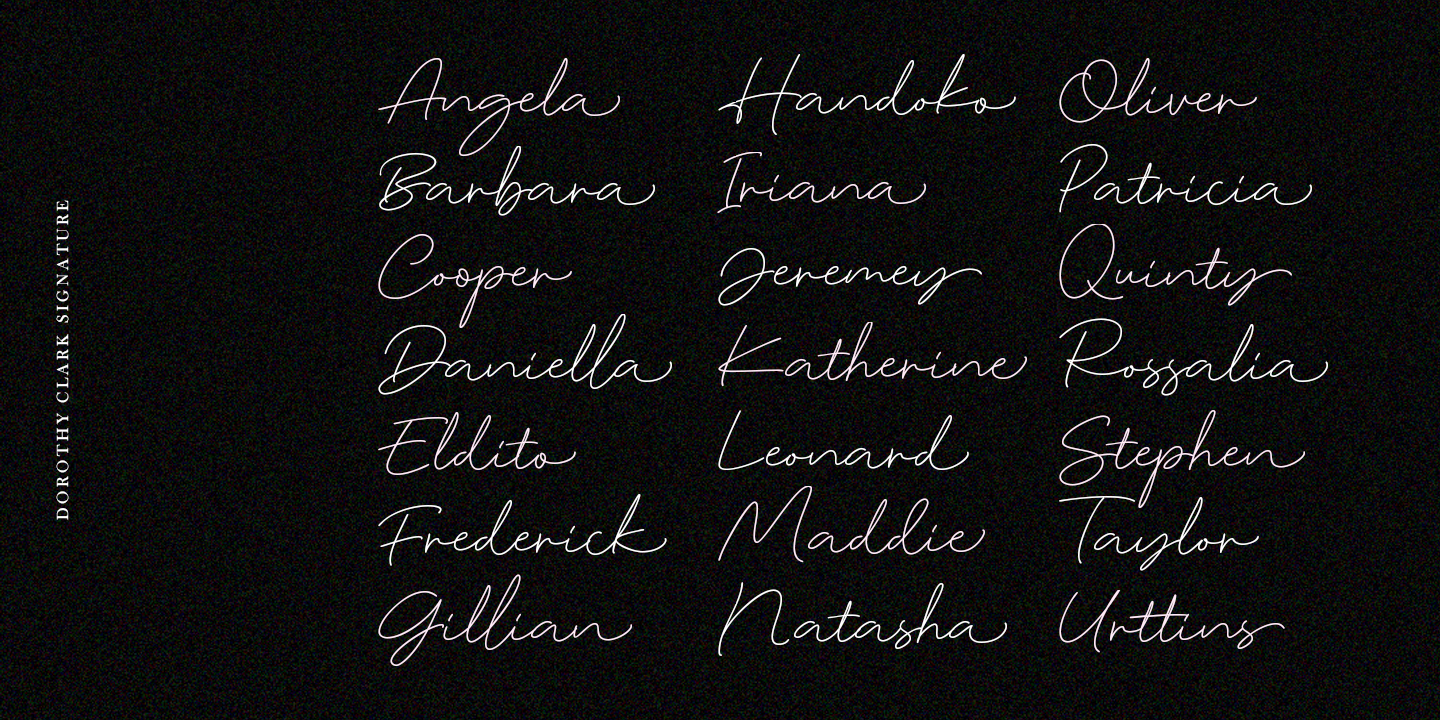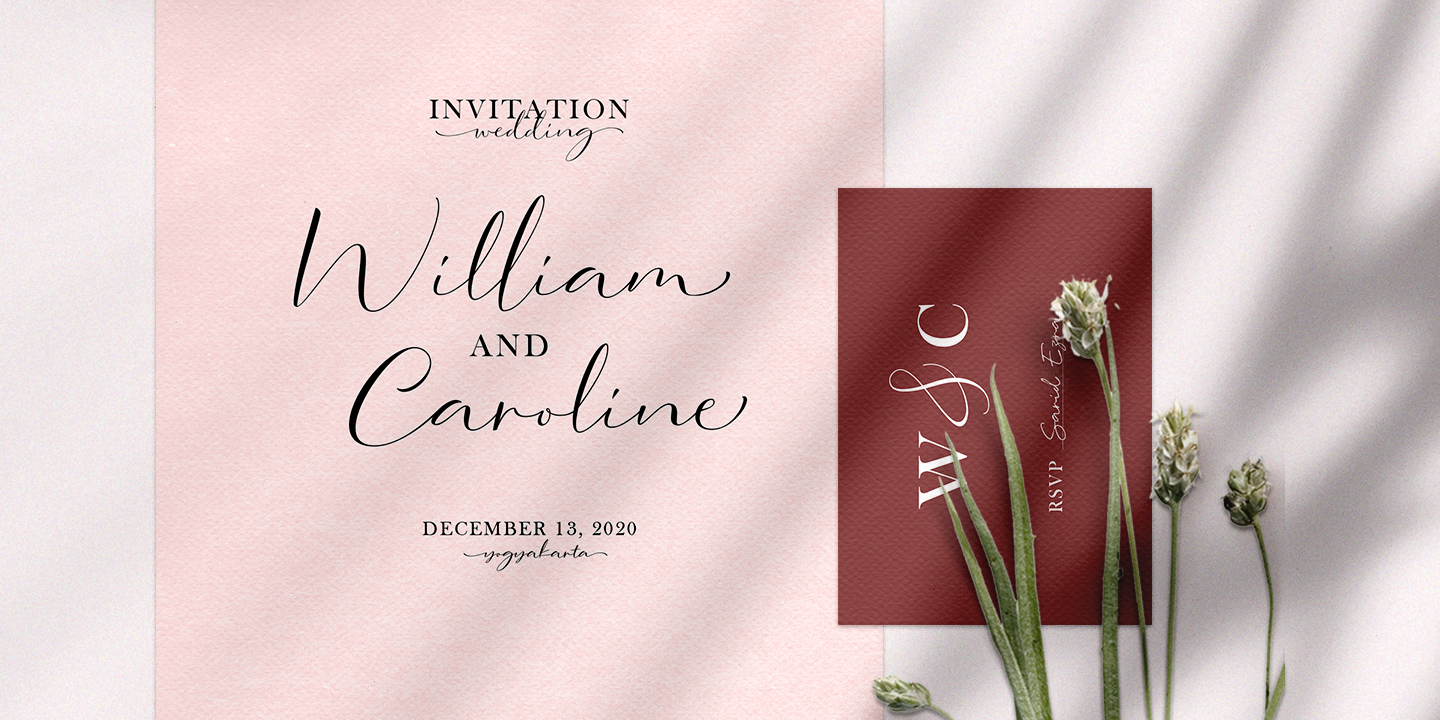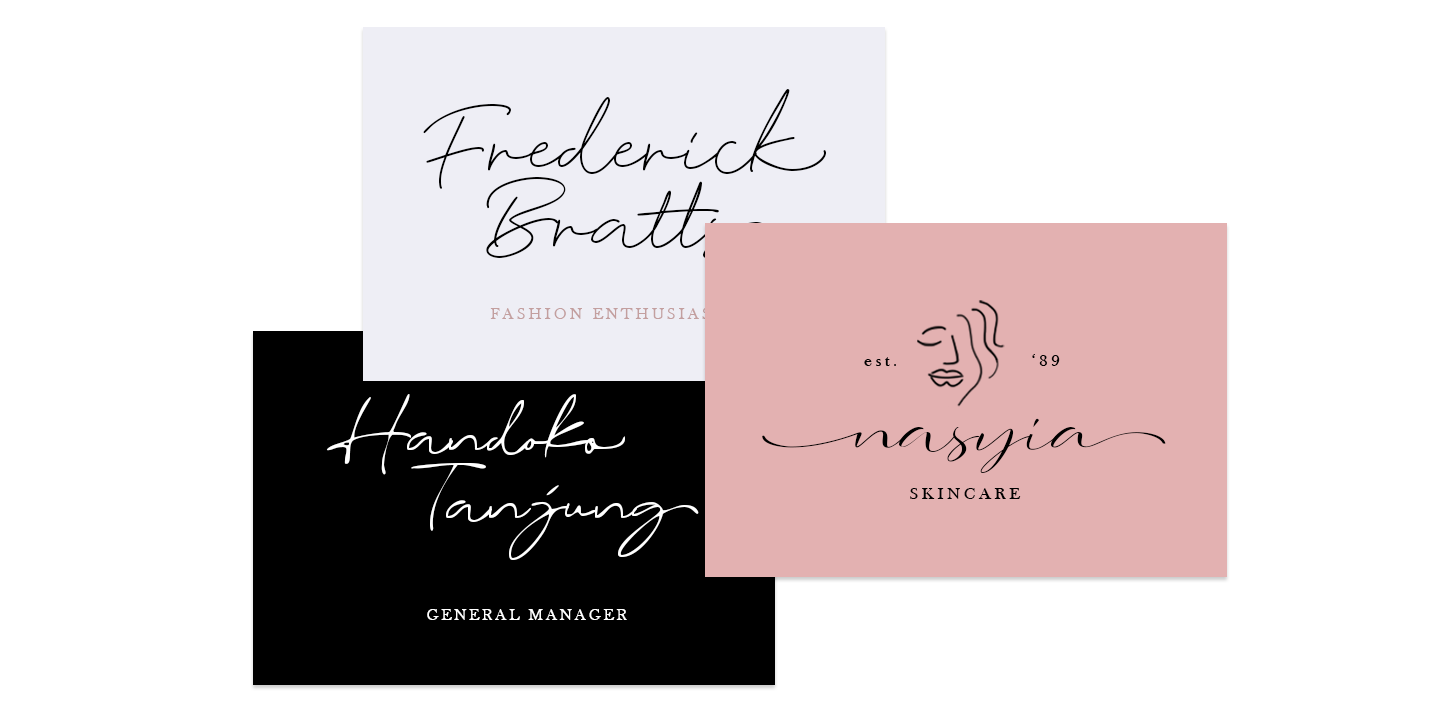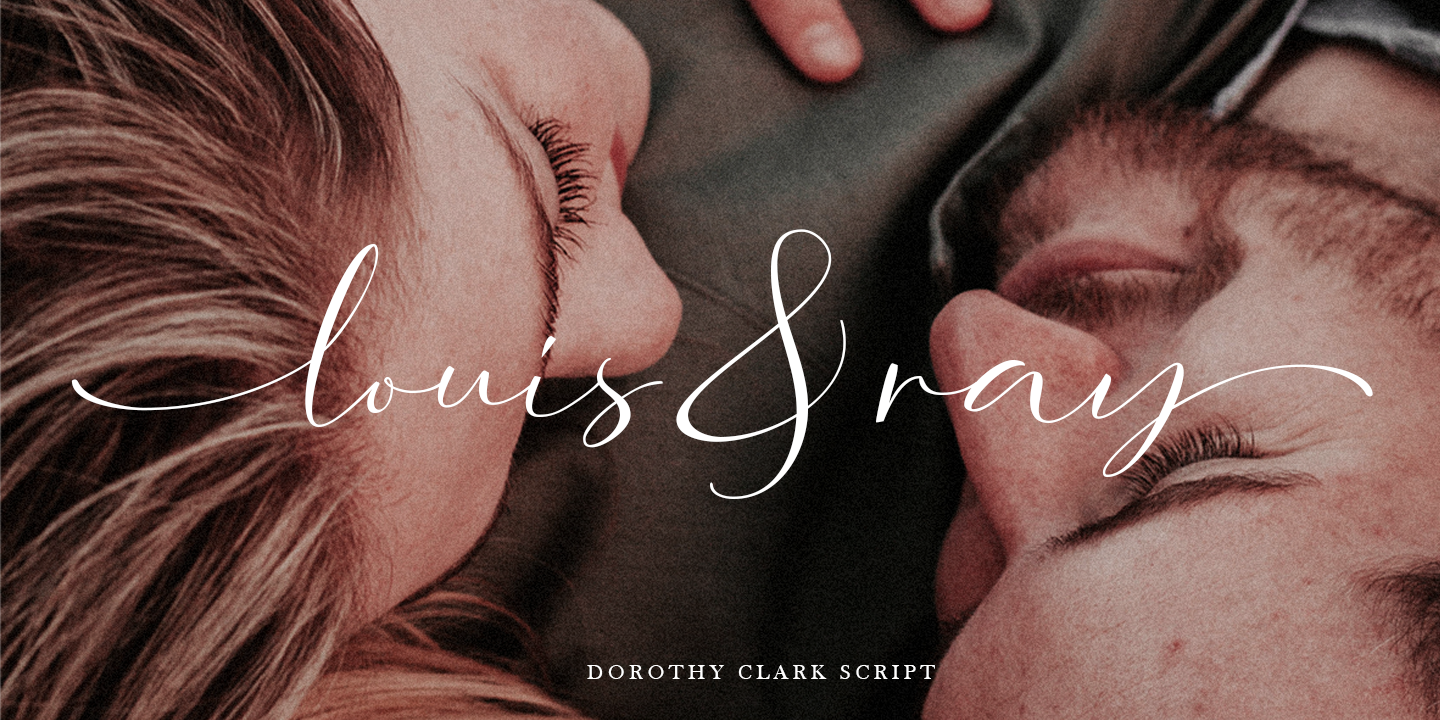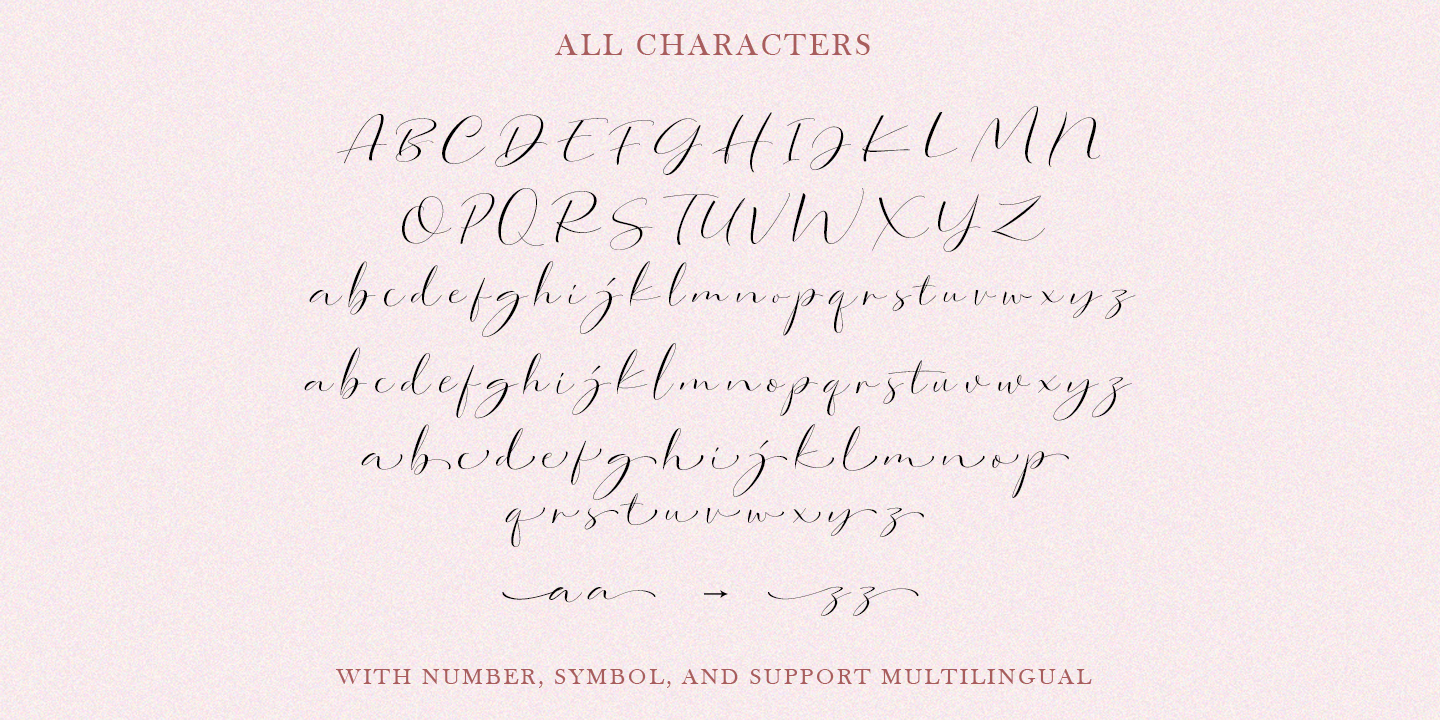
Dorothy Clark Script is a stylish script comes with 3 styles, regular script, signature script and ink script. This typeface has unique opentype feature as you can see the explanation at 2nd preview image. This font perfectly made to be applied especially in logo, and the other various formal forms such as invitations, labels, logos, magazines, books, greeting / wedding cards, packaging, fashion, make up, stationery, novels, labels or any type of advertising purpose. This font comes with 3 style, Regular script that gives you the weight of calligraphy feel, Signature that gives you a consistent stroke with the same weight, and ink to add handfcrafted inky feel. All of them just in one font!
Features :
- uppercase & lowercase
- numbers and punctuation
- multilingual
- ligatures
- alternates
- swashes
- contextual alternate